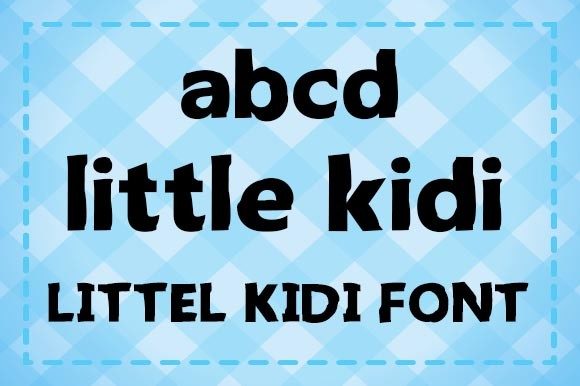
Introduction to Little Kidi Font
Do you remember the joy of doodling in your notebook as a kid, bringing your imagination to life with colorful scribbles and playful letters? As designers, we strive to capture that same sense of creativity and whimsy in our work. And that’s exactly what the Little Kidi Font does – it’s a cool, bold, and friendly display font that embodies playfulness and authenticity, making it the perfect choice for any children’s activity or school project.
Adding the Little Kidi Font to your designs can instantly elevate them, making them come alive with its chunky lettered charm. Whether you’re working on a free download project or need a design resource for a creative project, this high-quality font is a valuable addition to your toolkit. With a transparent background, you can easily layer it over any image or design element, creating a unique and eye-catching visual effect.
Key Features of Little Kidi Font
- High-quality design: Little Kidi Font is a unique and creative design resource ideal for various projects, offering a distinctive look.
Honest Review: Little Kidi Font
The Little Kidi Font is a beautiful, playful font that’s perfect for designs that require a touch of whimsy. Its transparent background makes it easy to customize and integrate into any design.
- ✨ High-quality design: The font is crisp, clear, and well-designed, making it perfect for print and digital projects.
- ✨ Versatility: The Little Kidi Font can be used for a variety of creative projects, from children’s books to advertisements.
- ⚠️ Limited character set: The font may not have a comprehensive character set, which could be a limitation for designers who need to use special characters.
- ⚠️ Not suitable for formal designs: The playful nature of the font may not be suitable for formal or professional designs.